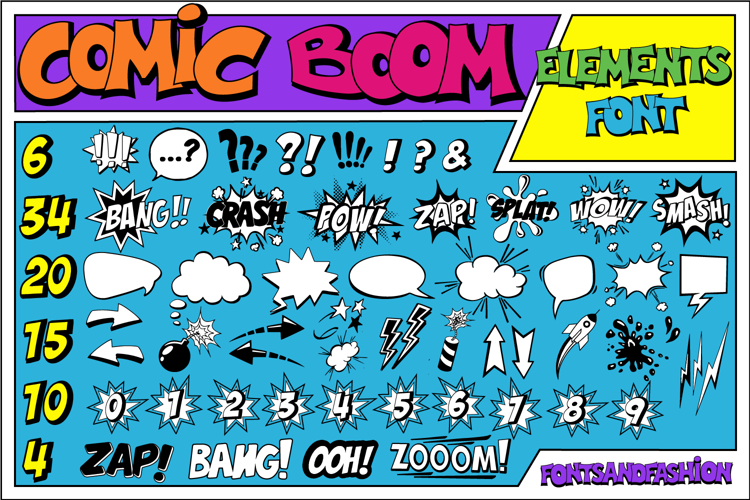
Comic Boom Elements Font
“COMIC BOOM ELEMENTS” is an elements font inspired me by comic book and pop art.
It is a very useful and versatile collection composed by 89 comic and funny supers heros subjects:
20 Speech Balloon
6 Punctuation Symbols
15 Comic Elements
10 Bubble Numbers
34 Comic Boom
4 Comic Speech
"COMIC BOOM ELEMENTS" is an efficient complements to express all your passion about comic book..